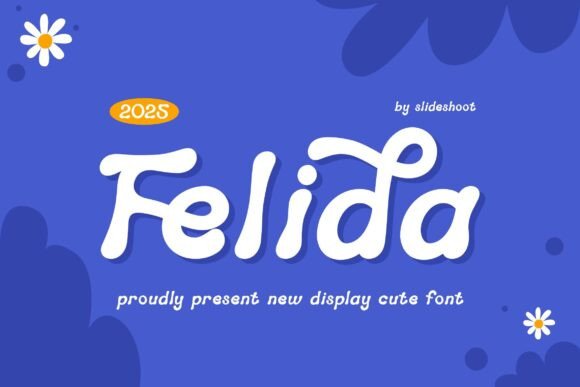
Felida Font: The Ultimate Choice for Modern and Classy Designs
In the world of typography, fonts play a crucial role in making or breaking a design. A well-chosen font can elevate your brand’s visual identity, making it more recognizable and memorable. If you’re on the hunt for a modern and classy font that can take your branding and logo designs to the next level, look no further than Felida Font. In this article, we’ll dive into the world of Felida Font, exploring its features, benefits, and uses.
What is Felida Font?
Felida Font is a modern and classy font designed for a wide range of applications, including branding, logo design, invitation cards, movie titles, book titles, and more. This beautiful font boasts a unique character that sets it apart from other fonts in the market. Its clean lines, elegant curves, and sophisticated style make it an excellent choice for designers looking to create stunning visual identities.
Benefits of Using Felida Font
So, why choose Felida Font for your design projects? Here are just a few benefits that make it an excellent choice:
- Versatility: Felida Font is suitable for a wide range of applications, from branding and logo design to invitation cards, movie titles, and book titles.
- Modern and Classy: This font’s modern and classy style makes it perfect for designers looking to create sleek and sophisticated visual identities.
- Unique Character: Felida Font has a unique character that sets it apart from other fonts in the market, making it an excellent choice for designers looking to create something distinctive.
- Elegant and Sophisticated: The font’s clean lines, elegant curves, and sophisticated style make it an excellent choice for designers looking to create high-end visual identities.
Uses of Felida Font
Felida Font is a versatile font that can be used in a wide range of applications, including:
- Branding: Use Felida Font to create a strong and recognizable brand identity that sets you apart from the competition.
- Logo Design: Create stunning logos that make a lasting impression with Felida Font.
- Invitation Cards: Use Felida Font to create elegant and sophisticated invitation cards for weddings, parties, and other events.
- Movie Titles: Create eye-catching movie titles and movie names with Felida Font.
- Book Titles: Use Felida Font to create stunning book titles and covers that grab attention.
- Business Cards: Create professional and elegant business cards with Felida Font.
Tips for Using Felida Font
Here are a few tips to help you get the most out of Felida Font:
- Pair it with other fonts: Experiment with pairing Felida Font with other fonts to create a unique and visually appealing combination.
- Use it consistently: Use Felida Font consistently across all your design projects to create a strong and recognizable brand identity.
- Experiment with colors: Don’t be afraid to experiment with different colors and color combinations to find the perfect match for Felida Font.
In conclusion, Felida Font is a modern and classy font that is perfect for designers looking to create stunning visual identities. Its versatility, unique character, and elegant style make it an excellent choice for a wide range of applications, from branding and logo design to invitation cards, movie titles, and book titles. With its clean lines, sophisticated curves, and wide range of uses, Felida Font is sure to become a favorite among designers.